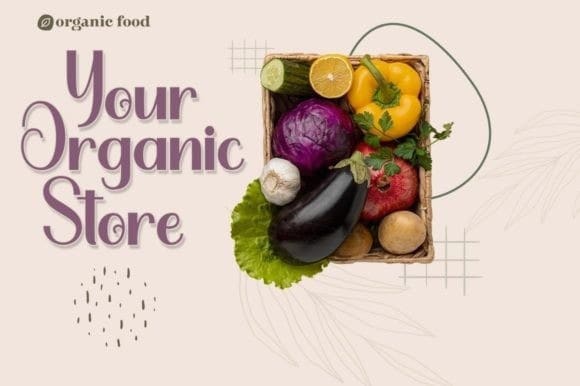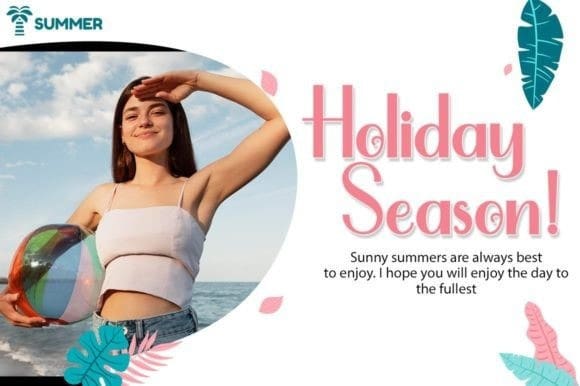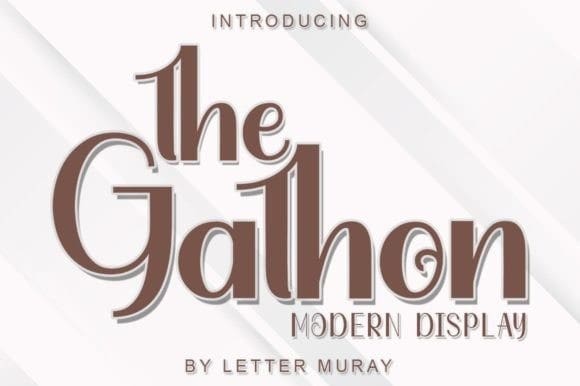
The Gathon Font
The Gathon Font is a fun display font that will make your creative projects awesome! This font has a bold style but is incredibly flexible and adaptable, so add it with confidence and you’ll love the results! This font is PUA encoded which means you can access all of the glyphs and swashes with ease!